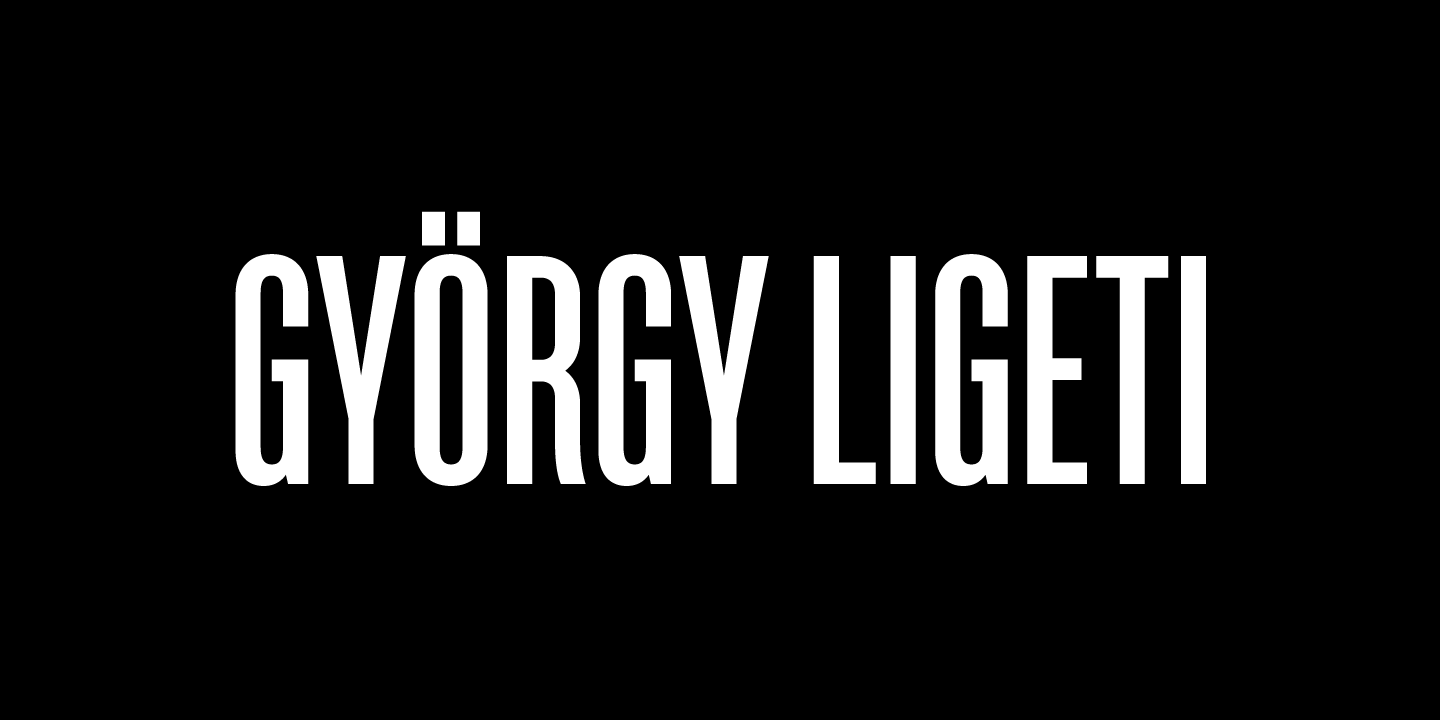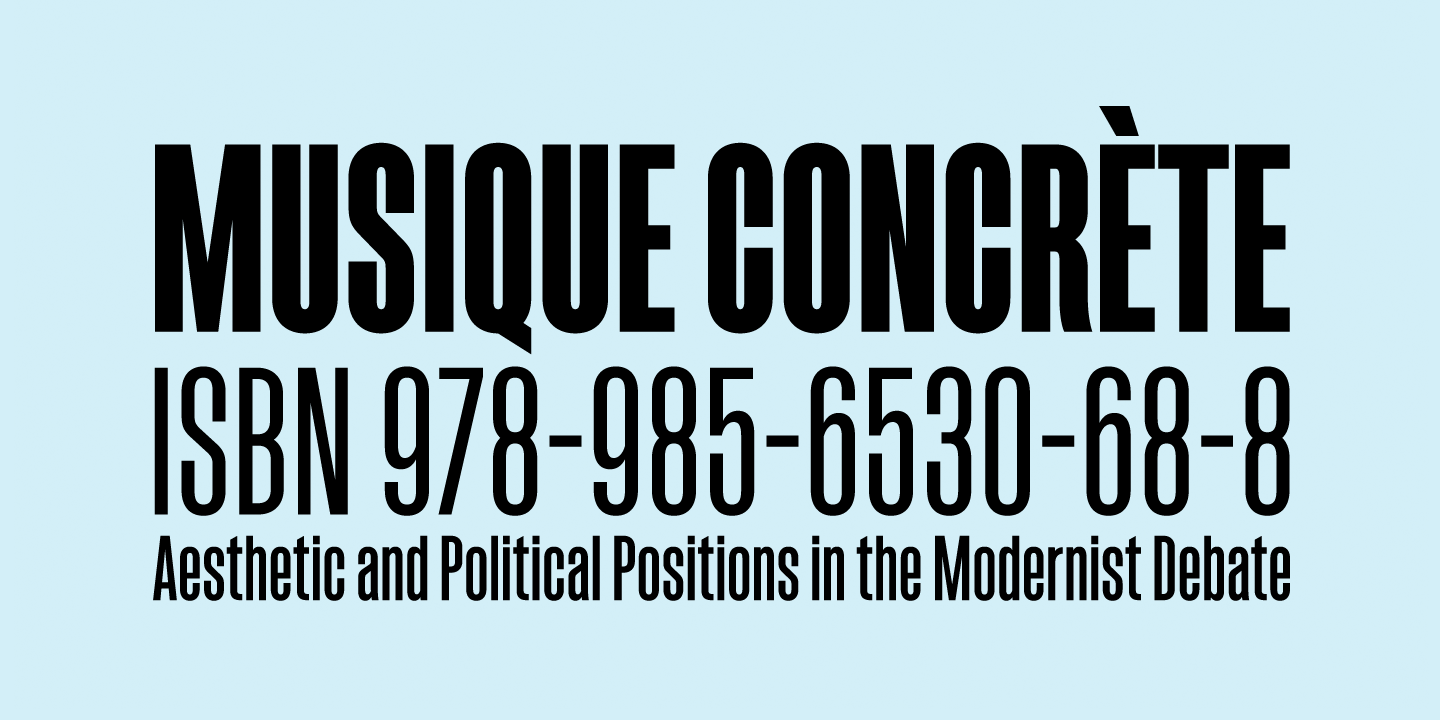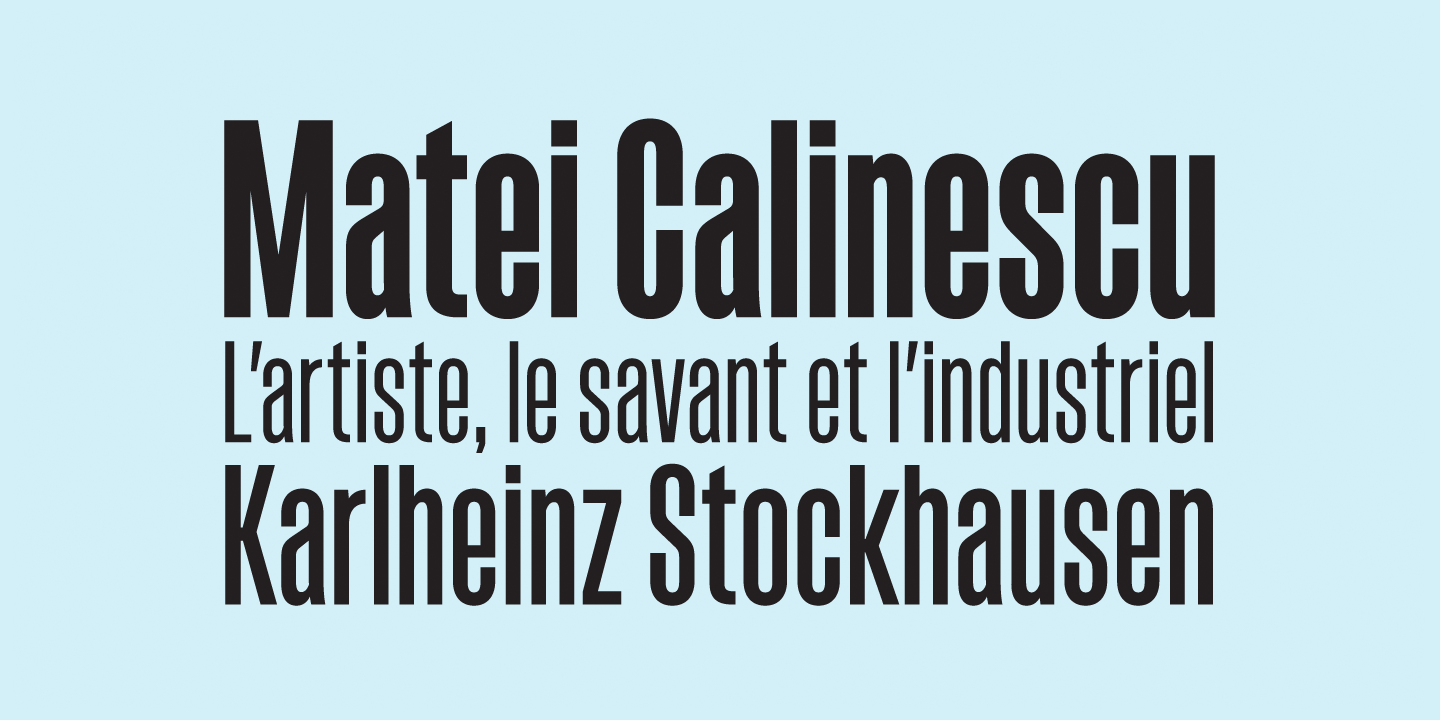
Sorren Ex
Sorren Ex is a slightly less condensed, more robust version of Sorren. Its overall width has been increased to the point just before its rounded forms begin to flatten, retaining the aesthetic essence of the original without compromise.
Sorren is a definitive bold condensed sans influenced by neo-grotesque designs. A relatively low stroke contrast complimented with sharp, horizontal stroke ends lend an unyielding appearance, while its rounded forms and refined curves juxtapose its inherent strength with grace.
Stylistically, Sorren has a classic, timeless feel with a contemporary finish and attention to detail. It is characteristically more elegant and considerably sturdier than the typical condensed sans, lending to it's singular disposition.
Features include:
- Standard Ligatures set including 'f' ligatures (ff, fi, fj, fl, ffi, ffj, ffl, ae, oe, AE, OE)
- Discretionary Ligatures set including (No [numero])
- Alternate characters (Aringacute, hcircumflex, and numero sign)
- Case forms (shifts various punctuation marks up to a position that works better with all-capital sequences)
- Capital Spacing (globally adjusts inter-glyph spacing for all-capital text)
- Slashed zero
- Full set of numerators/denominators superior/inferior numerals
- Tabular Lining, Proportional Lining, Tabular Oldstyle and Proportional Oldstyle Figures
- Automatic fraction feature (supports any fraction combination)
- Extended language support (Latin-1 and Latin Extended-A)